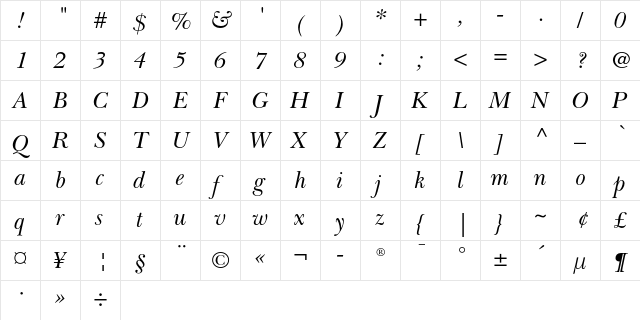
Baskerville Cyrillic Inclined
Design Context for Baskerville Typeface
Baskerville takes a measured approach to typography — its balanced proportions and neutral character make it a reliable workhorse for both digital and print work.